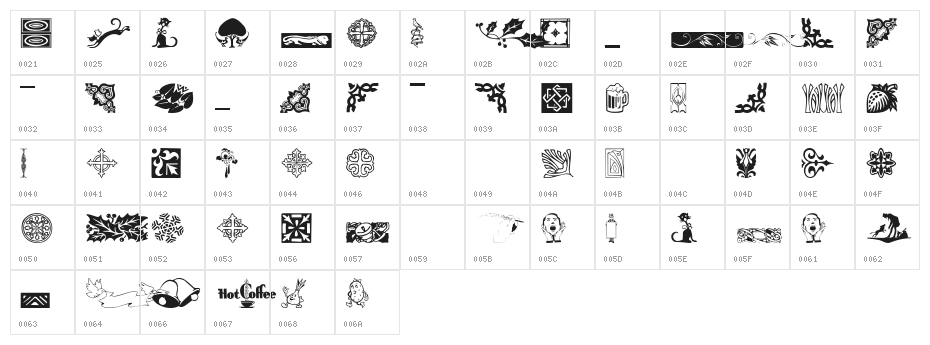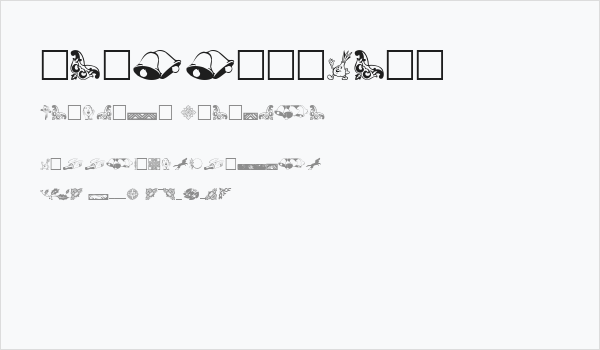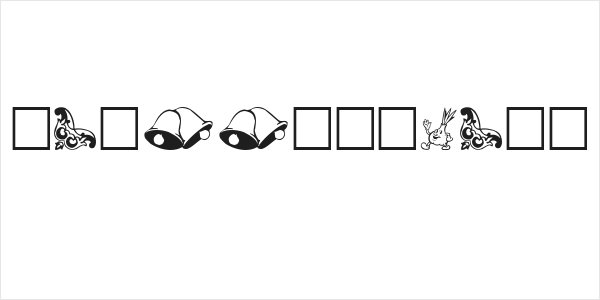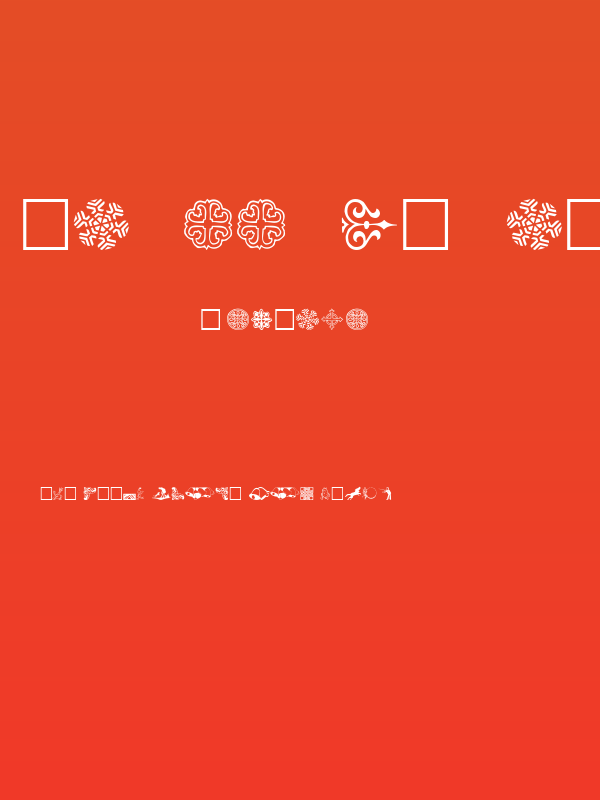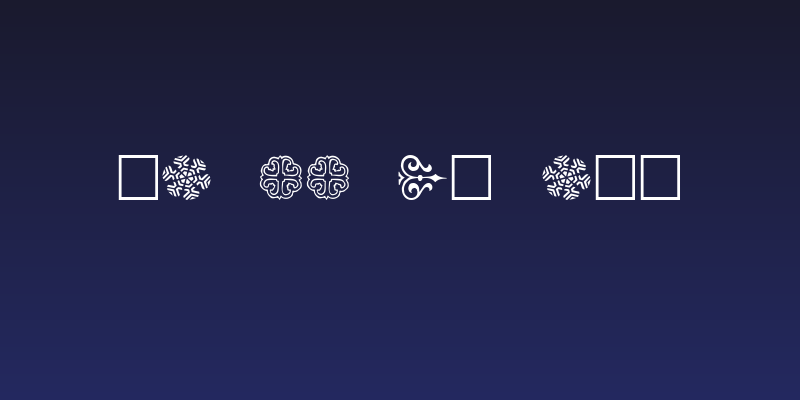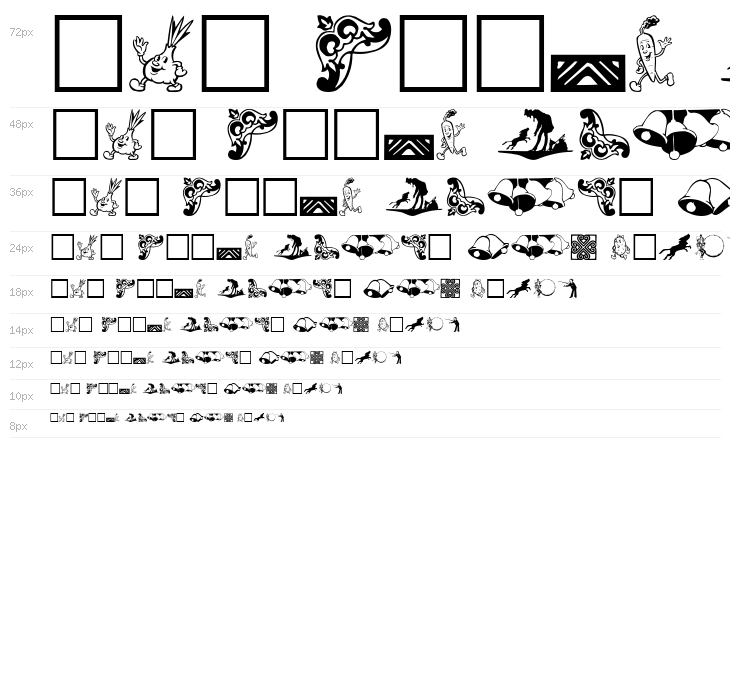
GriffinThree Font
GriffinThree Description
A highly decorative dingbat font featuring a variety of ornate motifs, including Celtic-inspired knots, floral patterns, mythical creatures, coffee-themed icons, and whimsical illustrations. The glyphs are bold, intricate, and primarily black-and-white, with some designs incorporating negative space for visual interest.
| Overall Style | Decorative, Whimsical, Vintage |
| Use Case | Borders, Dividers, Decorative elements, Themed graphics |
| Proposed Projects | Invitations, decorative borders, scrapbooking, fantasy-themed designs, logo embellishments, and creative dividers. |